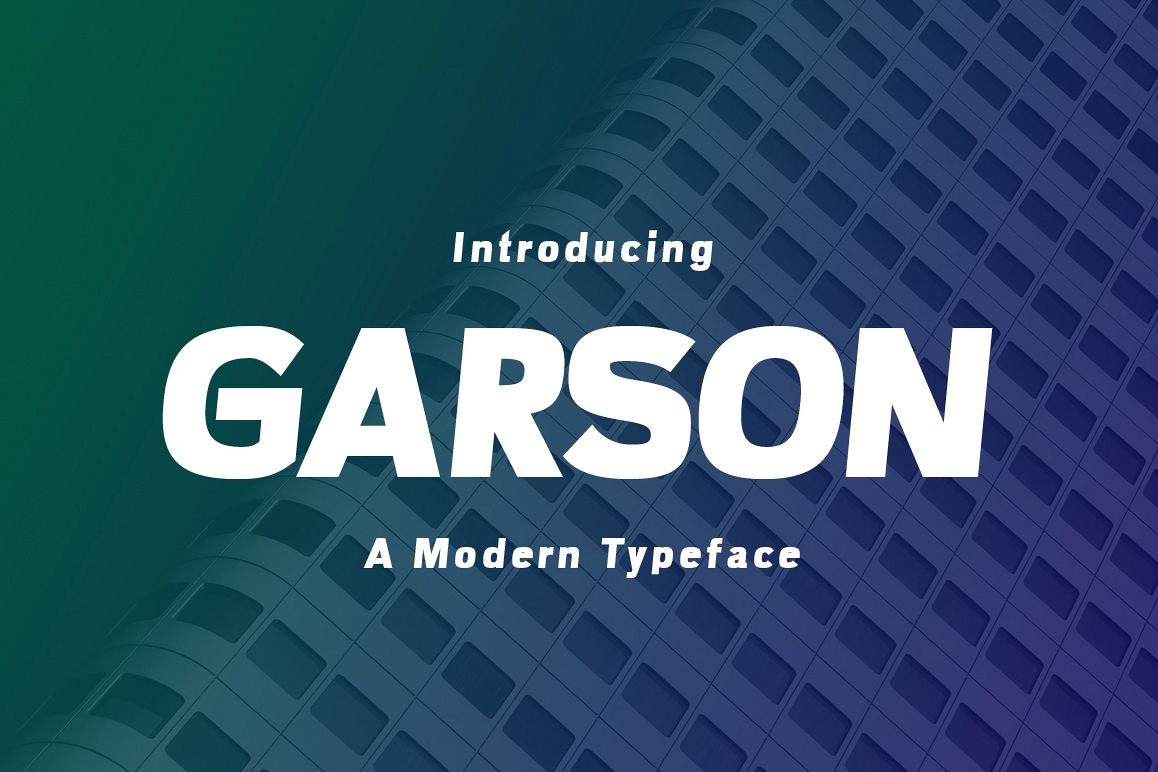
Introducing Garson!
Garson is a fresh & modern font. Garson is perfectly suited to stationery, logos, t-shirt, paper, print design, website header, photo frame, flyer, music cover, poster, image slider and much more.